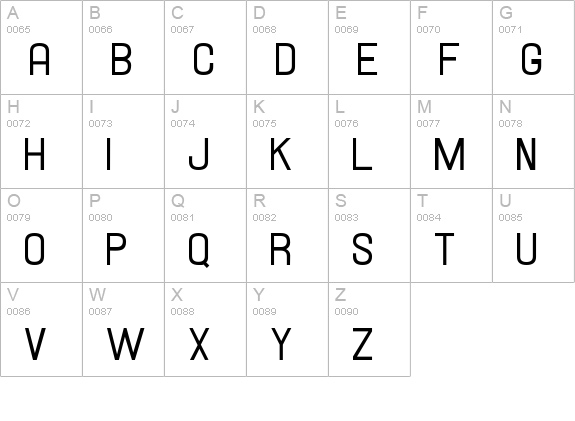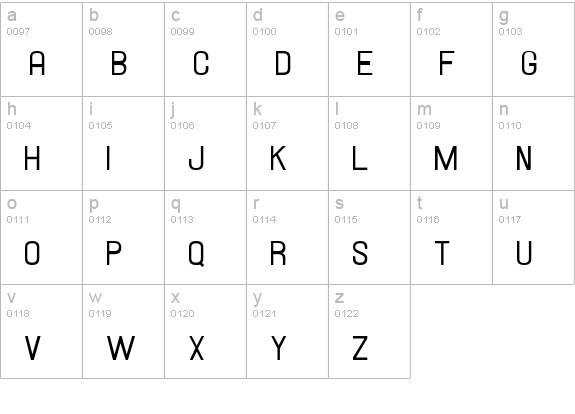
Hallandale Small Caps JL font is a beautifully crafted typeface that exudes elegance and sophistication. It is perfect for adding a touch of class to any design project. The small caps style gives it a unique and distinguished look, making it stand out from other fonts. With its clean lines and balanced proportions, Hallandale Small Caps JL font is a versatile choice for a wide range of applications. Whether you are designing a logo, creating a wedding invitation, or working on a branding project, this font will add a touch of refinement and professionalism to your work. One of the best things about Hallandale Small Caps JL font is that it is free to download. You can easily access this font at FontsMarket.com, where it is readily available for download. This means that you can enjoy all the benefits of this stunning font without any cost. The designers of Hallandale Small Caps JL font have put a lot of thought and care into creating a typeface that is not only visually appealing but also highly legible. The attention to detail is evident in every curve and stroke, resulting in a font that is both aesthetically pleasing and easy to read. Whether you are a professional designer or a casual hobbyist, Hallandale Small Caps JL font is a must-have in your font library. Its timeless elegance and versatility make it an ideal choice for a wide range of design projects. Download it for free at FontsMarket.com and elevate your designs to new heights.